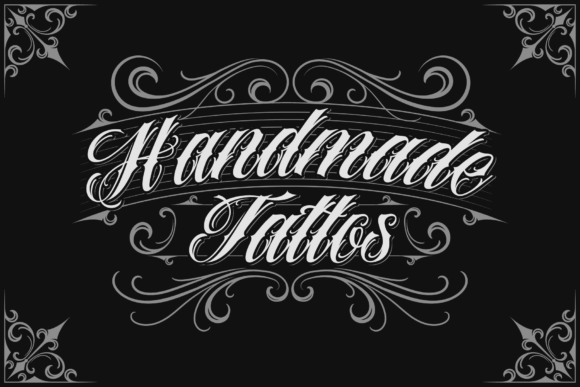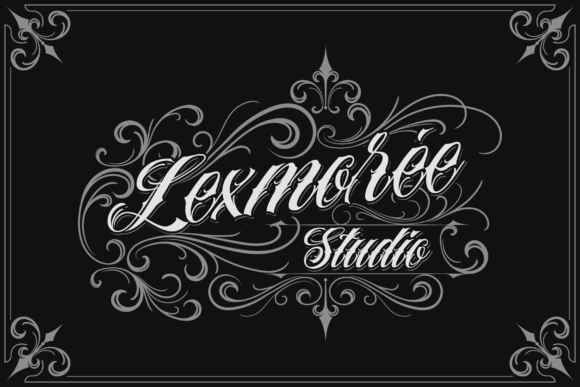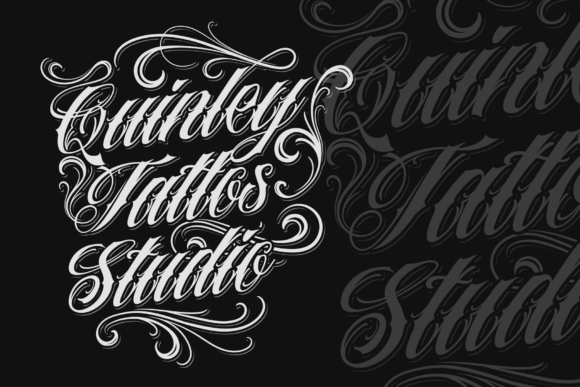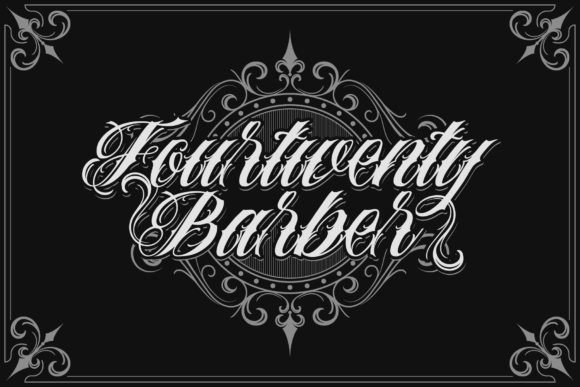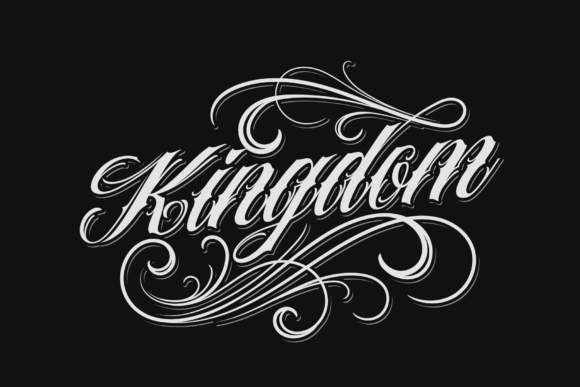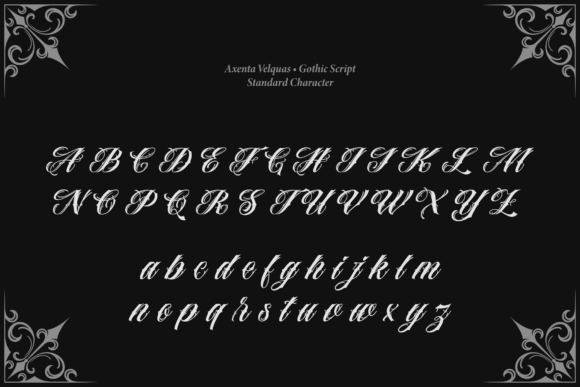
Introducing Axenta Velquas: The Elegant Victorian Handwritten Font
In the world of typography, few fonts capture the essence of Victorian elegance and charm as beautifully as Axenta Velquas. This stunning handwritten font is a perfect blend of classic sophistication and modern flair, making it an ideal choice for designers and crafters looking to add a touch of personality to their projects. Whether you’re working on wedding invitations, thank you cards, quotes, greeting cards, logos, business cards, or any other design that requires a handwritten touch, Axenta Velquas is sure to impress.
The Characteristics of Axenta Velquas
Axenta Velquas is a meticulously crafted font that embodies the spirit of Victorian-era handwriting. Its flowing lines, delicate strokes, and intricate details evoke a sense of nostalgia and romance, perfect for creating unique and eye-catching designs. The font’s handwritten nature gives it a personal and intimate feel, making it suitable for a wide range of applications, from formal events to personal correspondence.
Why Choose Axenta Velquas?
So, what sets Axenta Velquas apart from other fonts? Here are just a few reasons why designers and crafters love working with this beautiful font:
- Elegance and Sophistication: Axenta Velquas exudes refinement and luxury, making it perfect for high-end designs, wedding materials, and special occasions.
- Versatility: This font can be used for a wide range of projects, from digital designs to print materials, and from formal events to personal correspondence.
- Unique and Eye-catching: Axenta Velquas has a distinctive look that will set your designs apart from the crowd and make them truly memorable.
- Easy to Read: Despite its ornate nature, Axenta Velquas is surprisingly easy to read, making it suitable for both headlines and body text.
Using Axenta Velquas in Your Designs
Axenta Velquas is an incredibly versatile font that can be used in a variety of design applications. Here are some ideas to get you started:
- Wedding Invitations: Create beautiful, one-of-a-kind wedding invitations that set the tone for the big day.
- Greeting Cards: Add a personal touch to your greeting cards, whether it’s for a birthday, anniversary, or holiday.
- Logos and Branding: Use Axenta Velquas to create a unique and memorable logo for your business or brand.
- Quotes and Typography: Showcase your favorite quotes or lyrics in a stunning and eye-catching way.
- Business Cards: Stand out from the crowd with beautifully designed business cards that feature Axenta Velquas.
Tips for Working with Axenta Velquas
To get the most out of Axenta Velquas, here are a few tips to keep in mind:
- Pair it with a Simple Font: Balance out the ornateness of Axenta Velquas by pairing it with a simple, clean font.
- Play with Ligatures: Take advantage of Axenta Velquas’ beautiful ligatures to add an extra touch of elegance to your designs.
In conclusion, Axenta Velquas is a truly special font that offers designers and crafters a unique and elegant way to add a handwritten touch to their projects. With its Victorian charm, versatility, and ease of use, it’s no wonder that Axenta Velquas is quickly becoming a favorite among designers and crafters alike. So why not give it a try and see the difference it can make in your designs?